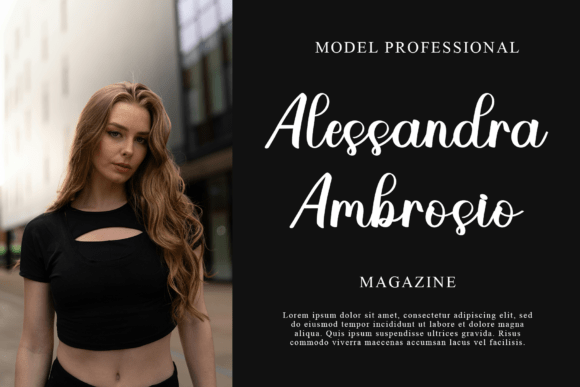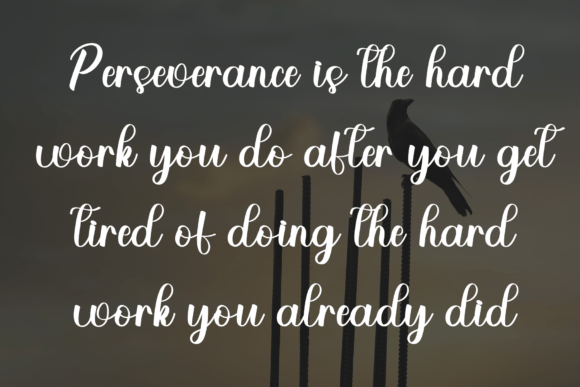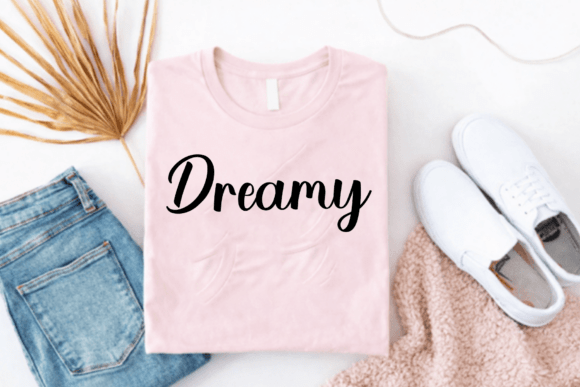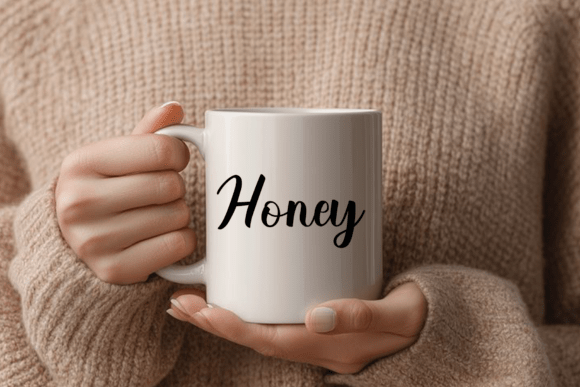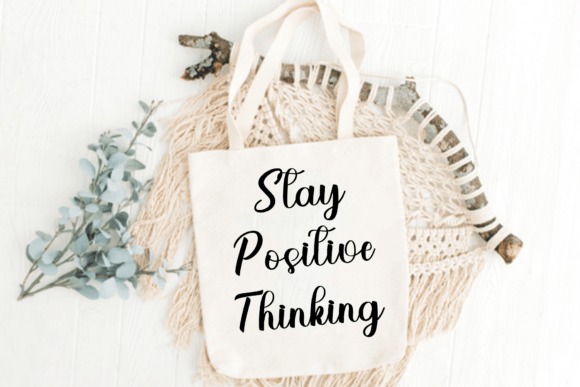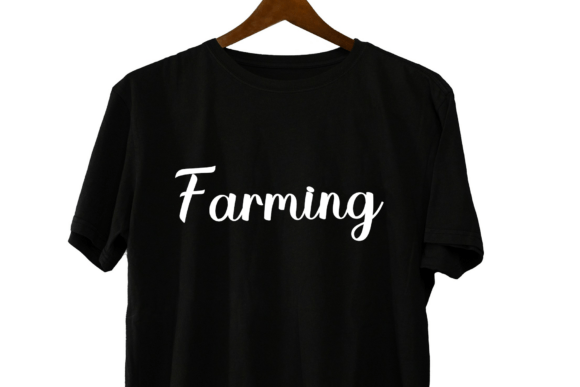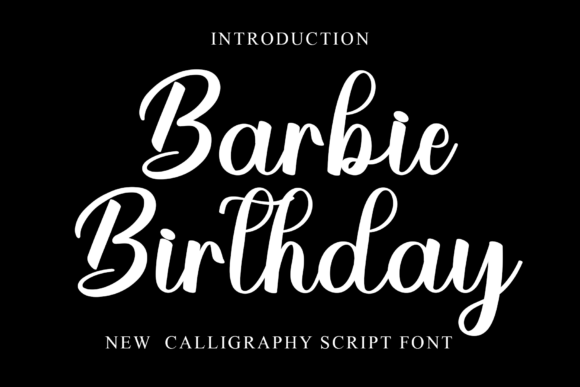
Remember that moment when you spent hours brainstorming the perfect birthday invitation for a loved one? The excitement, the anticipation, and the desire to make it truly special. That’s exactly what the Barbie Birthday Font is designed to evoke – warmth, friendliness, and a dash of playfulness.
This delightful font is perfect for adding a personal touch to your projects, be it an invitation, a social media graphic, or a birthday card. Its round, playful strokes create a relaxed and approachable feel that’s sure to make your designs stand out. Whether you’re a seasoned designer or a creative enthusiast, the Barbie Birthday Font is a valuable addition to your toolkit, offering a unique and charming aesthetic that’s perfect for making a lasting impression.
Barbie Birthday Font Key Features
- Font Style: The Barbie Birthday Font is a decorative, cursive script font, perfect for creating a whimsical and playful atmosphere.
- Character Count: The font includes a wide range of characters, including uppercase and lowercase letters, numbers, and punctuation marks, ensuring you have everything you need to create your design.
- Unique Characteristics: The font features a unique, hand-drawn design with a mix of bold and delicate lines, giving it a one-of-a-kind feel that’s sure to stand out.
Barbie Birthday Font Review
At first glance, the Barbie Birthday Font is a delightful and playful addition to any birthday celebration. ✨ The font’s whimsical design and bright colors immediately evoke the spirit of a fun and lively party. ✨ The bold and vibrant letters are perfect for creating eye-catching invitations, decorations, and party favors.
However, upon closer inspection, I noticed a few limitations. ⚠️ The font’s design is quite simplistic and lacks versatility, making it less suitable for more formal or professional applications. Additionally, the font may not be ideal for smaller text sizes, as the letters can appear blurry or pixelated.
Here are some specific points to consider:
- The font’s design is limited to a single style, making it less flexible for different design needs.
- The font may not be optimized for smaller text sizes, which can affect readability.
- The font’s color palette is quite bright and may not be suitable for all design applications.
Overall, the Barbie Birthday Font is a fun and playful addition to any birthday celebration, but it may not be the best choice for more formal or professional applications. With some limitations in mind, this font can still add a touch of whimsy and fun to your designs.
The Barbie Birthday Font is commonly used for:
- Birthday invitations and cards.
- Party decorations and signage.
- Personalized gifts and merchandise.
To get the most out of the Barbie Birthday Font, try the following:
- Use it in conjunction with other pastel-colored elements for a cohesive look.
- Pair it with bold, colorful graphics for a playful touch.